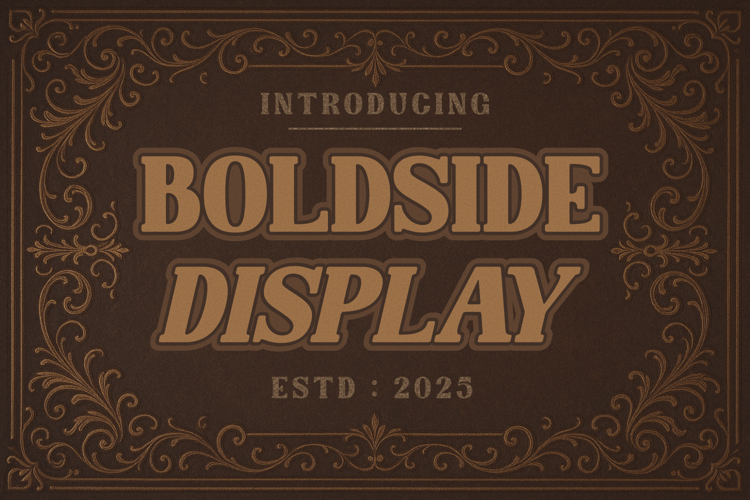
Bring timeless strength and vintage elegance to your design with Boldside Display, a vintage display font crafted for creators who love bold and classic typography.
This retro serif font combines solid letterforms with elegant curves, giving your design a strong, confident, and refined look. Perfect for labels, packaging, posters, apparel design, signage, or any creative project that needs a bold vintage touch.
With its thick letterforms, subtle texture, and retro western flair, it evokes a nostalgic, handcrafted feel reminiscent of old signage, whiskey labels, and vintage posters. The font features both sharp serifs and smooth curves, making it ideal for branding, packaging, labels, and decorative titles that demand attention with a touch of elegance and heritage.